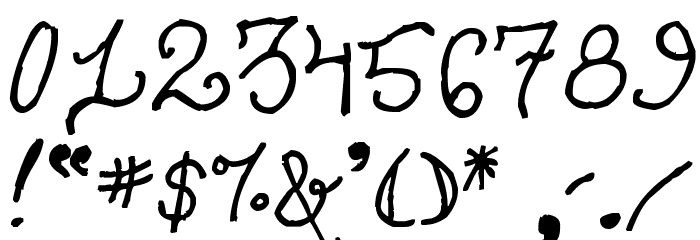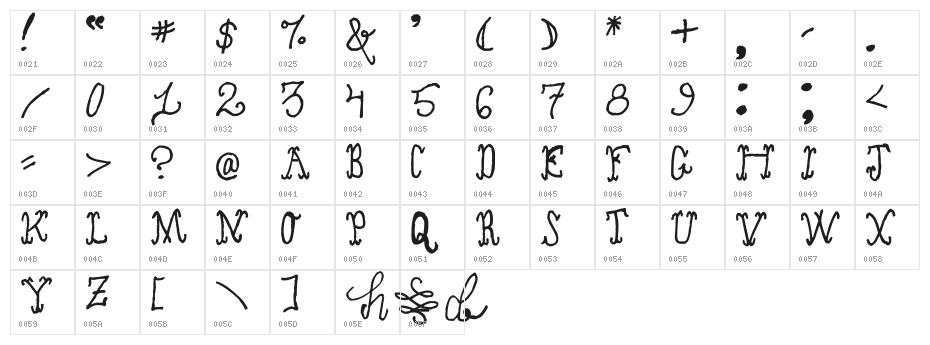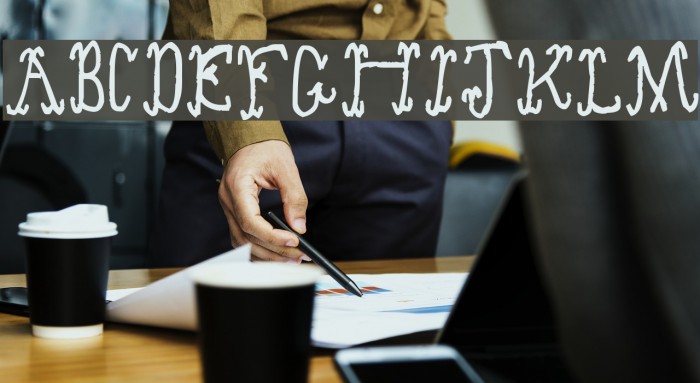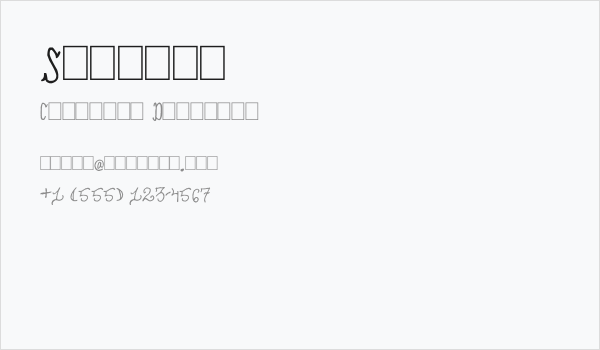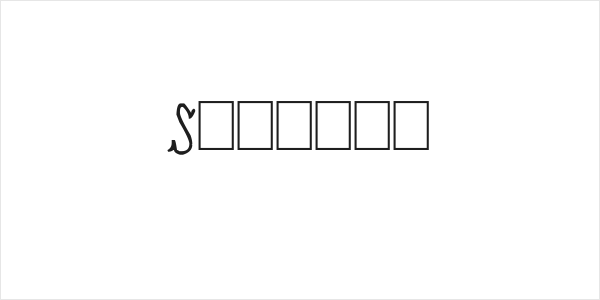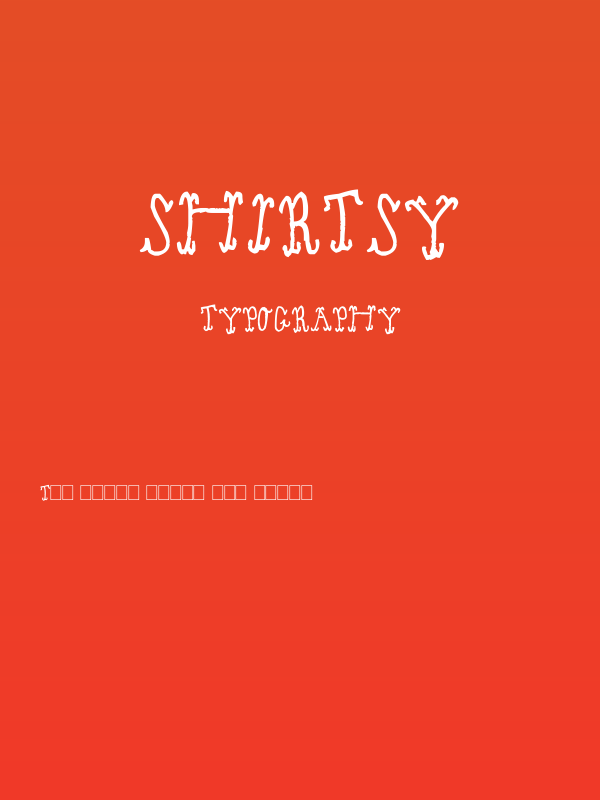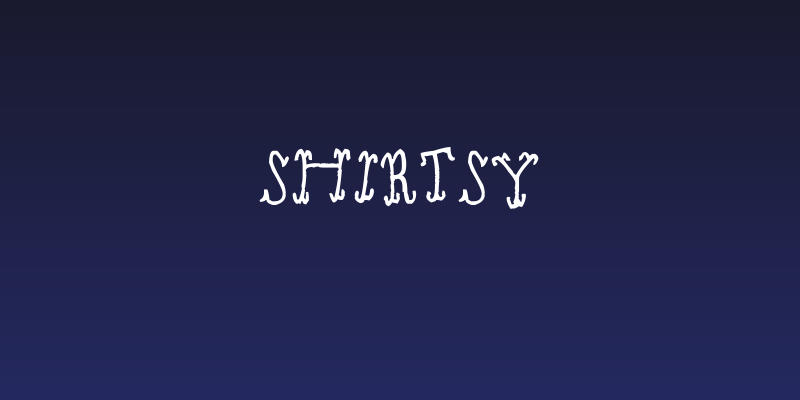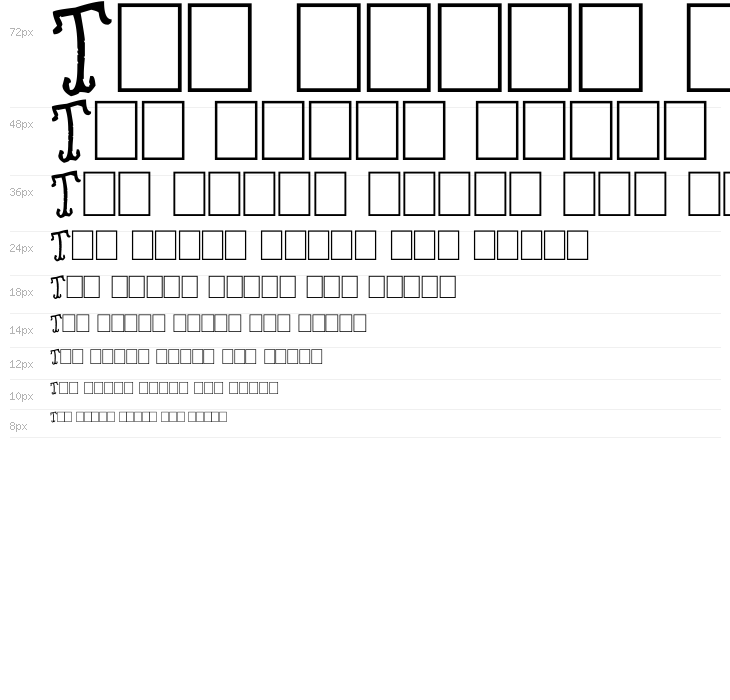
Shirtsy Font
Shirtsy Description
This font features a whimsical and playful design, characterized by its decorative and slightly irregular strokes. The uppercase letters exhibit a unique flair with exaggerated serifs and varying line thickness, giving them a hand-drawn appearance. The numbers and special characters maintain this playful style, adding a touch of creativity and fun. The overall look is reminiscent of a vintage or retro aesthetic, making it suitable for projects that require a distinctive and artistic touch. The font's unique style is both eye-catching and memorable, perfect for creating standout designs.
| Proposed Projects | Ideal for greeting cards, children's book covers, playful branding, and artistic posters. |